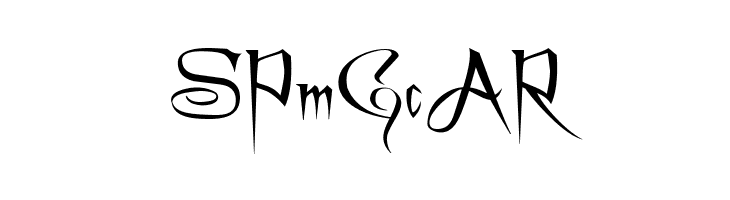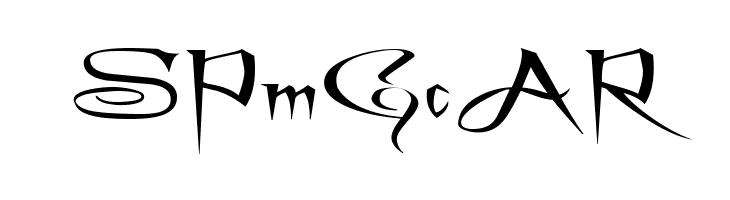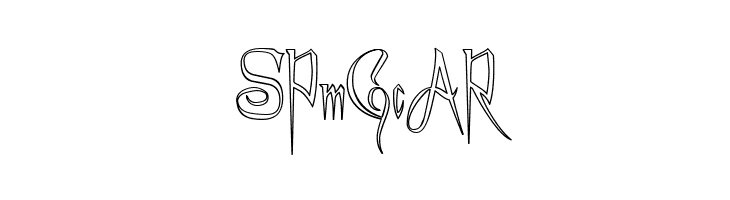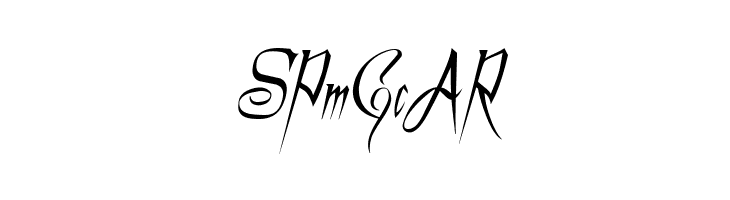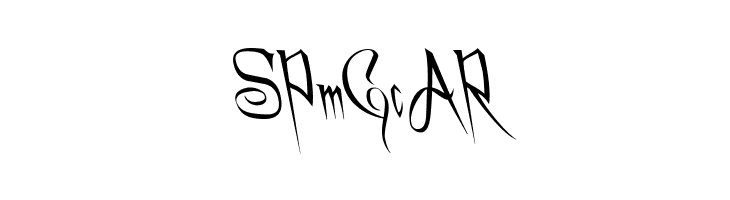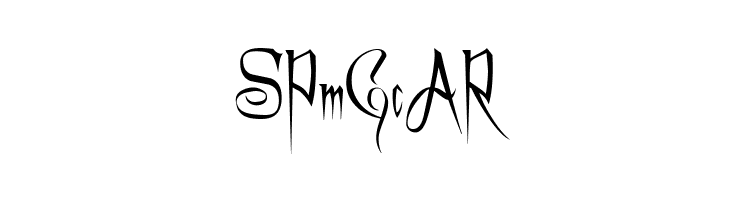
A bold, italicized font with a dynamic, brush-like style.
A bold, angular, and italicized font with a dynamic, edgy style.
A decorative font with intricate, eye-like patterns and a playful, artistic style.
A playful, handwritten font with fluid, interconnected strokes and a whimsical charm.
A decorative font with cursive script letters inside bold heart shapes.
A classic serif font with a modern twist, featuring elegant and sophisticated characters.
A chaotic, hand-drawn font with a graffiti-like style.
A bold, hand-drawn font with a sketch-like, dynamic appearance.
A bold, brush-style font with dynamic, hand-drawn strokes.
A rough, hand-drawn font with a playful and informal style.
A bold slab serif font with strong, geometric characters and block-like serifs.
A bold, geometric font with strong, uniform strokes and a commanding presence.
Hand-drawn sneaker illustrations form each character.
A bold, playful font with boxed characters and a hand-cut appearance.
A playful, handwritten font with smooth, rounded edges and a casual style.
A playful, handwritten font with tall, narrow characters and rounded edges.
A distressed, vintage-style font with a bold, weathered appearance.
A bold, brush-style font with dynamic, flowing strokes and artistic flair.
A bold, clear font ideal for signage and public notices.
An elegant, whimsical script font with flowing, interconnected strokes.
A graceful script font with flowing, interconnected letters and elegant flourishes.
A bold, dynamic script font with calligraphic influences and sharp edges.
An elegant, flowing script font with a modern, handwritten style.
A traditional Arabic script with elegant, flowing calligraphic strokes.
A classic and elegant Arabic script with intricate detailing and dynamic contrast.
( Fonts by elharrak - elharrak fonts - Personal-use only. For commercial use please contact owner. )
An elegant and traditional Arabic script with intricate design and dynamic contrast.
( Fonts by elharrak - elharrak fonts - Personal-use only. For commercial use please contact owner. )
An elegant Arabic script with flowing, cursive strokes and artistic flair.
( OldStudioo - Muhammad Ilham - www.fontdraft.com )
A graceful script font with decorative swashes and flowing cursive style.
( Fonts by Illushvara - Bayu Suwirya - Personal-use only. For commercial use please contact owner. )
A charming and elegant script font with flowing, cursive letterforms.
) ) A bold, slanted font with dynamic and energetic characteristics.
A bold, slanted font with a dynamic and modern style.
A dynamic, slanted script font with smooth, flowing strokes.